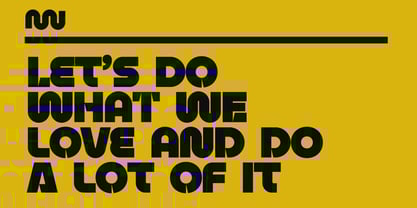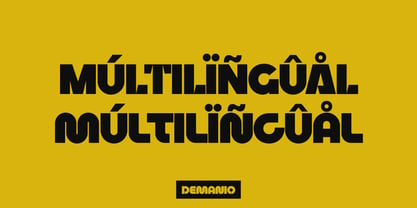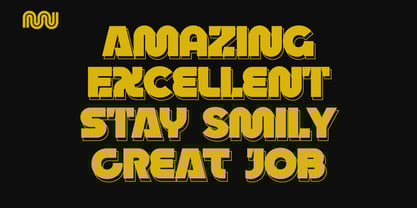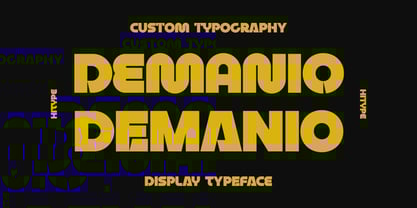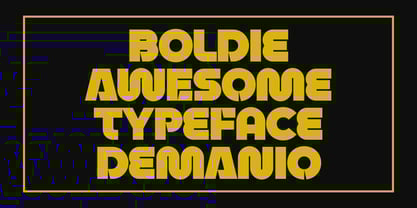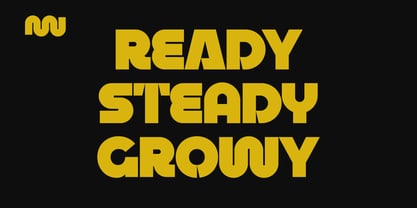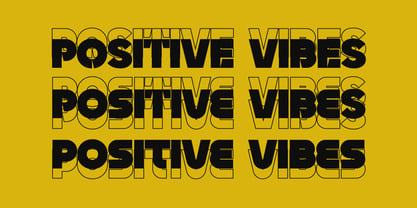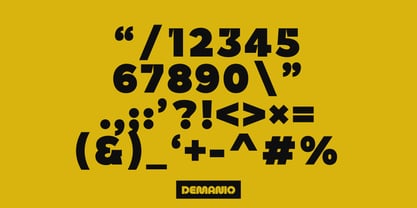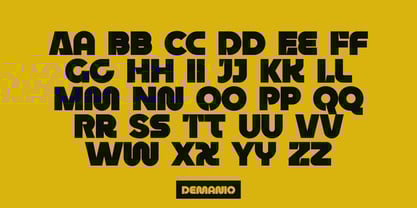
Demanio
by Hitype
The Demanio Font Family was designed by Hernando Marlay and published by Hitype. Demanio contains 1 styles.
Demanio is a bold display typeface with a unique style that allows you to create typography by simply changing the uppercase and lowercase on your keyboard. Suitable for logos, posters, packaging, branding, invitations, notes, etc.
Designers: Hernando Marlay
Publisher: Hitype
Foundry: Hitype
Design Owner: Hitype